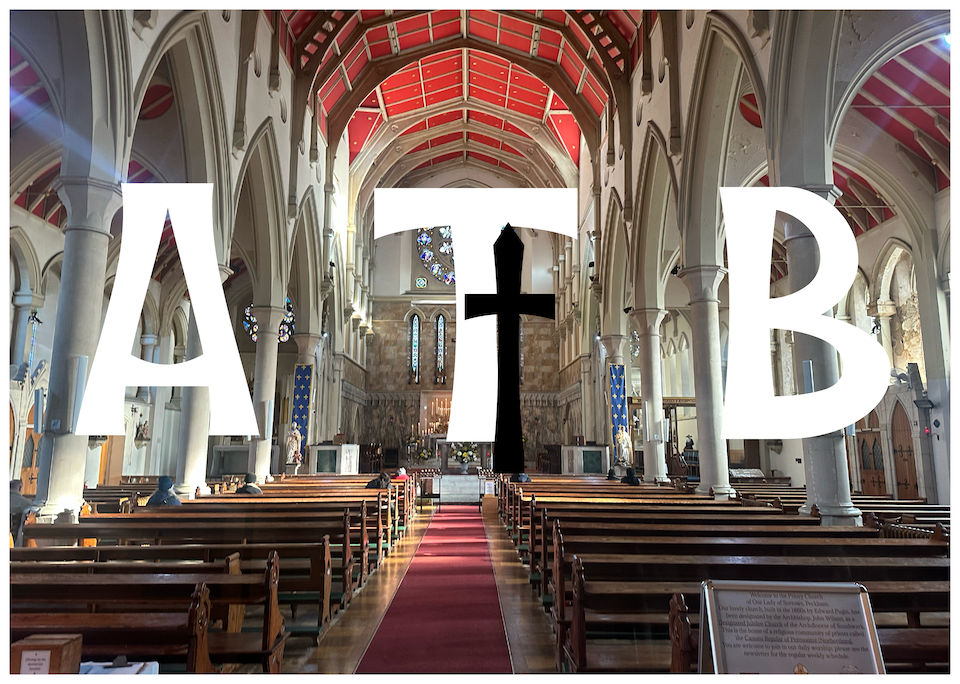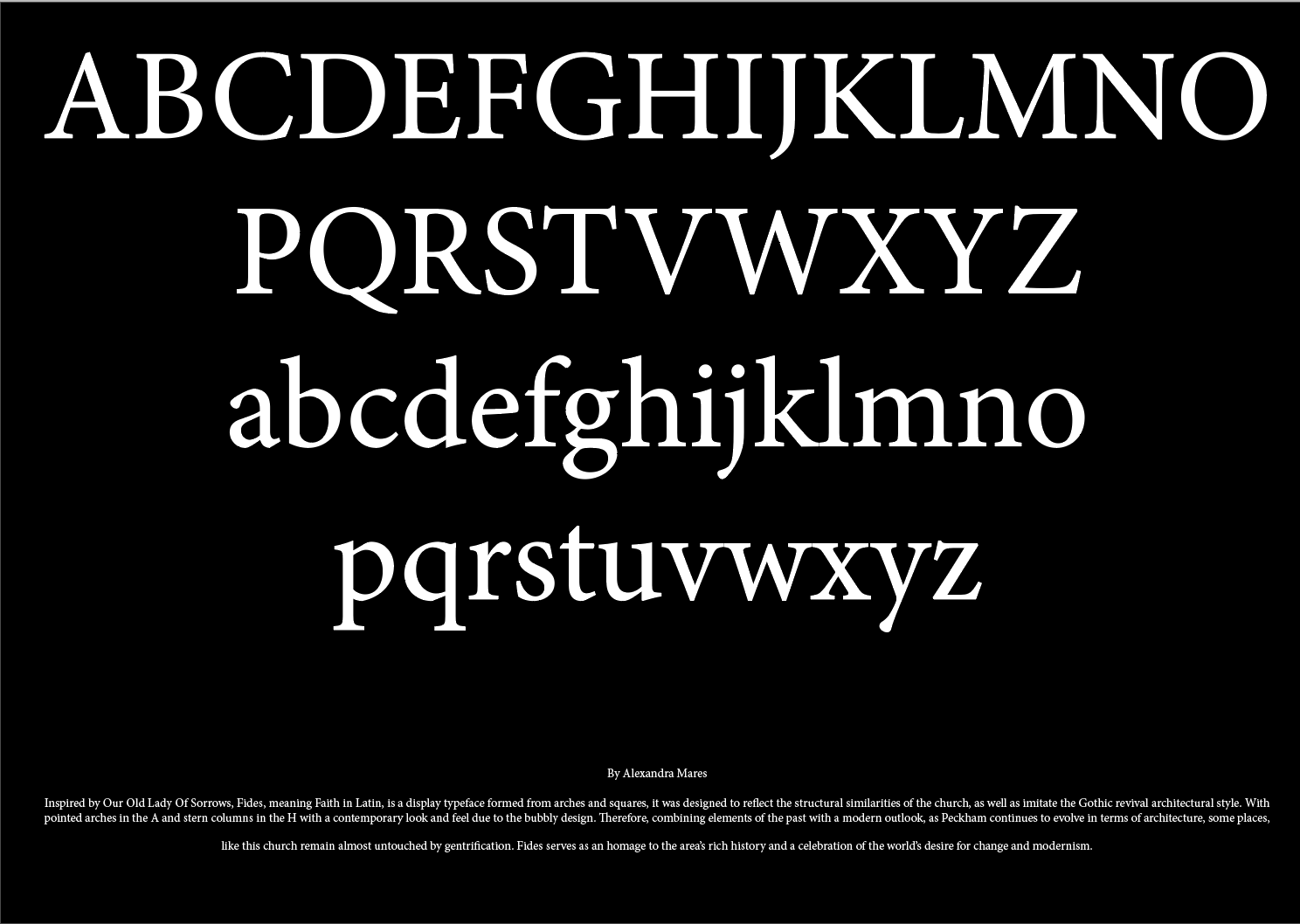
Inspired by Our Old Lady Of Sorrows, Fides, meaning Faith in Latin, is a display typeface formed from arches and squares, it was designed to reflect the structural similarities of the church, as well as imitate the Gothic revival architectural style. With pointed arches in the A and stern columns in the H with a contemporary look and feel due to the bubbly design. Therefore, combining elements of the past with a modern outlook, as Peckham continues to evolve in terms of architecture, some places, like this church remain almost untouched by gentrification. Fides serves as an homage to the area's rich history and a celebration of the world's desire for change and modernism.